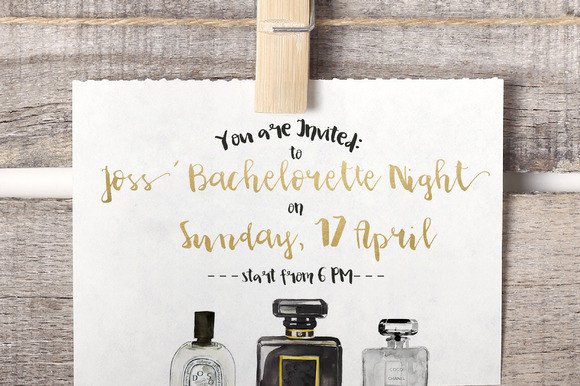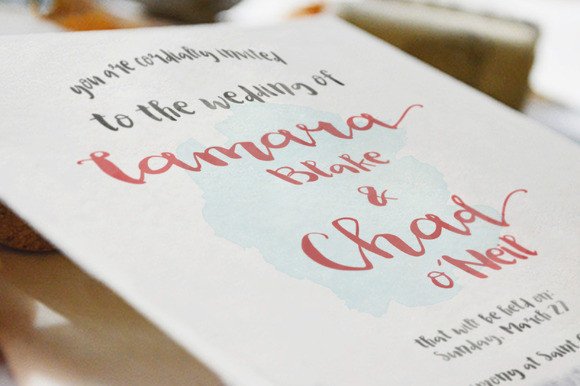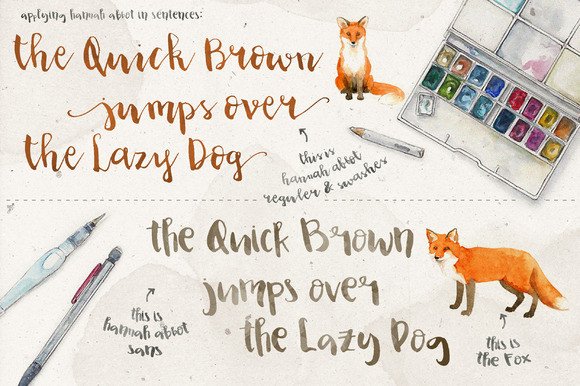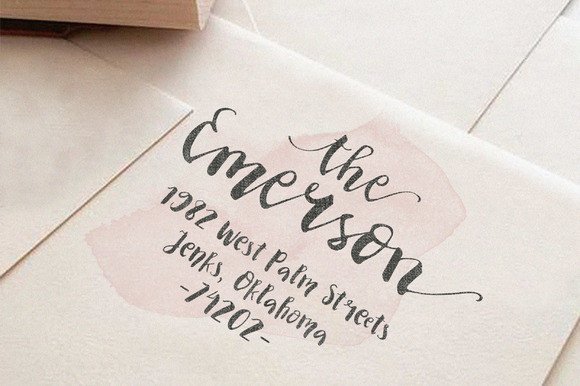
Hannah Abbot Font
About Hannah Abbot Font
Hannah Abbot is a duo feminine typeface which consists of Hannah Abbot Script with swashes and Hannah Abbot Sans.